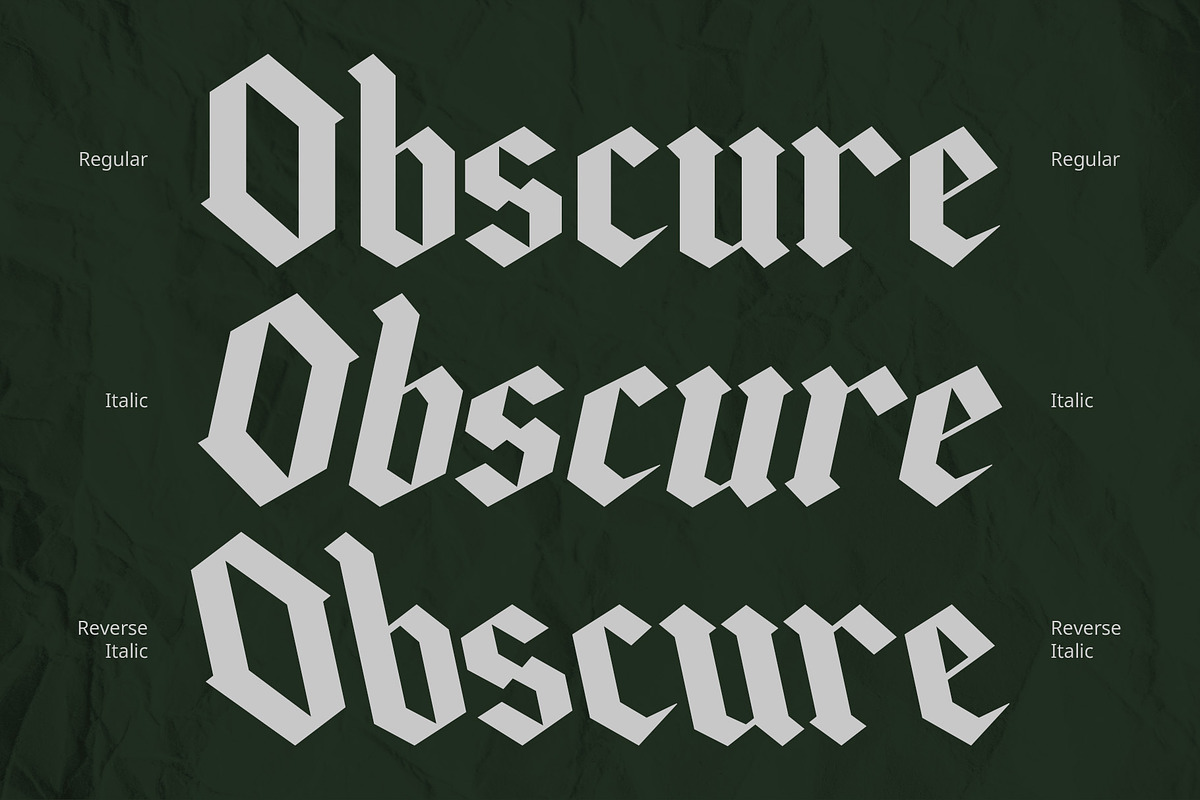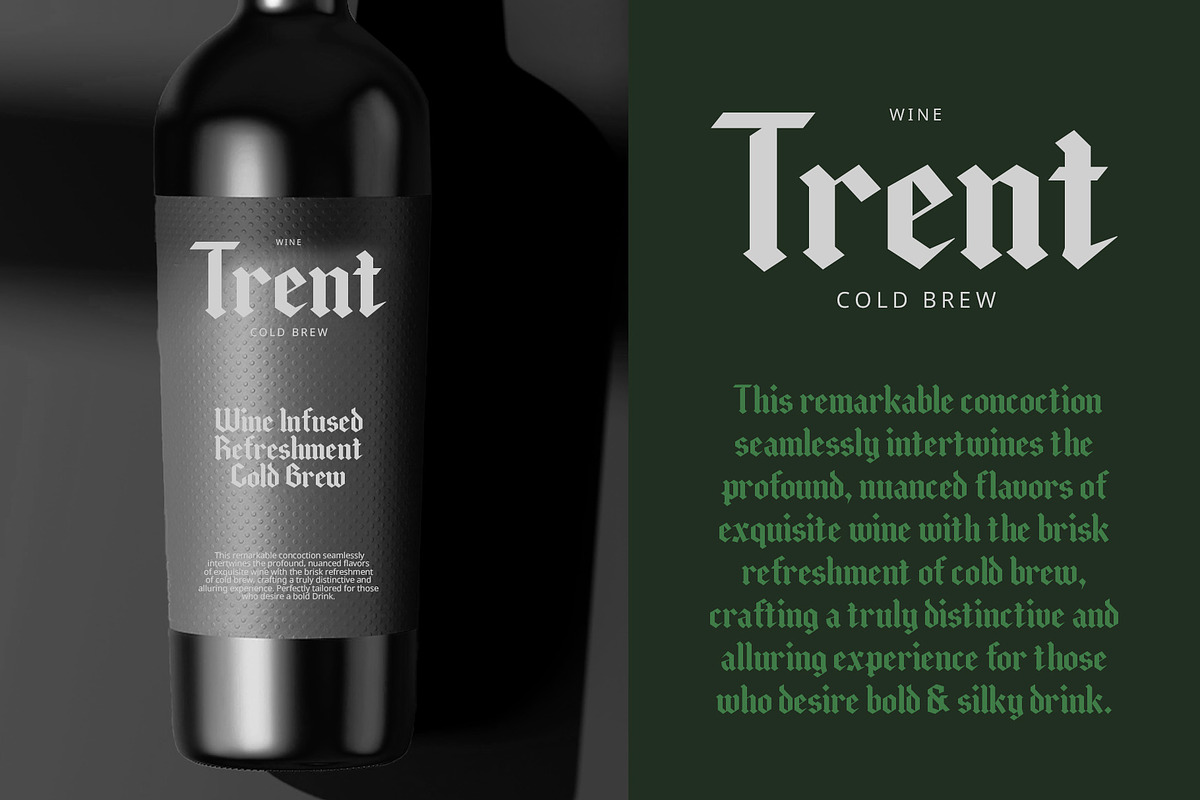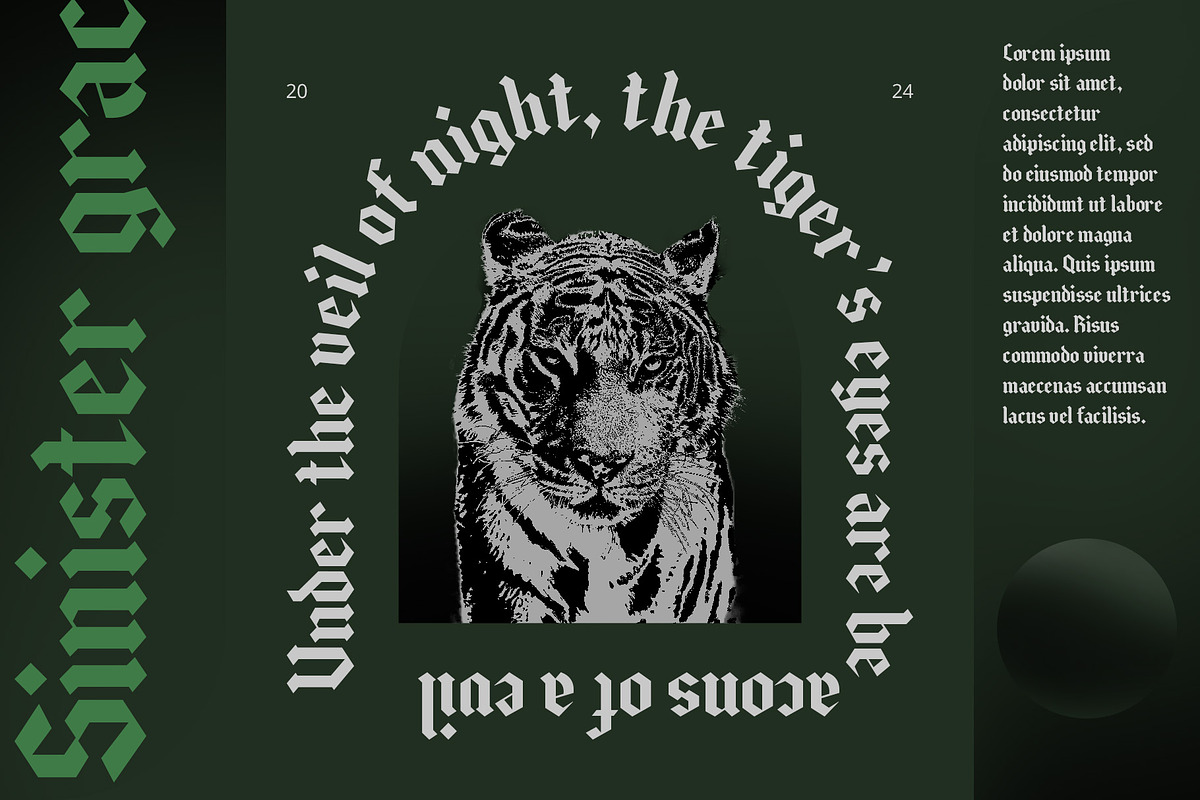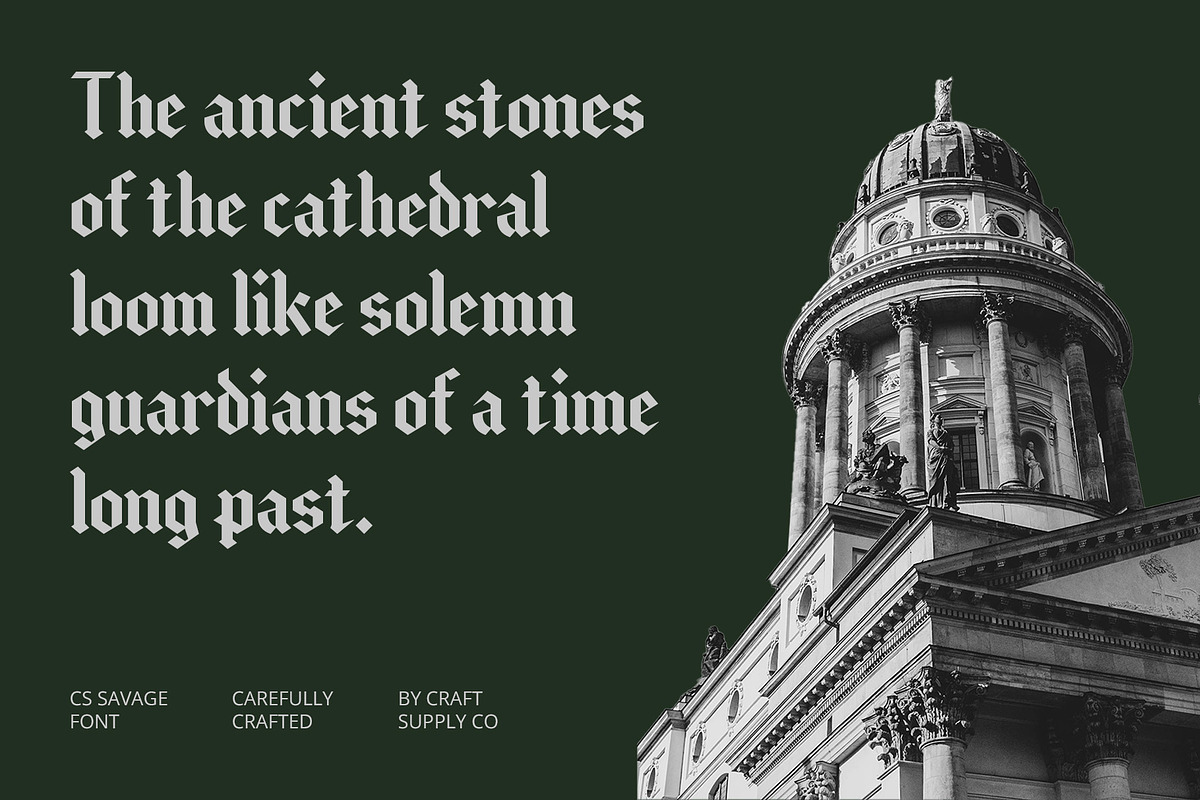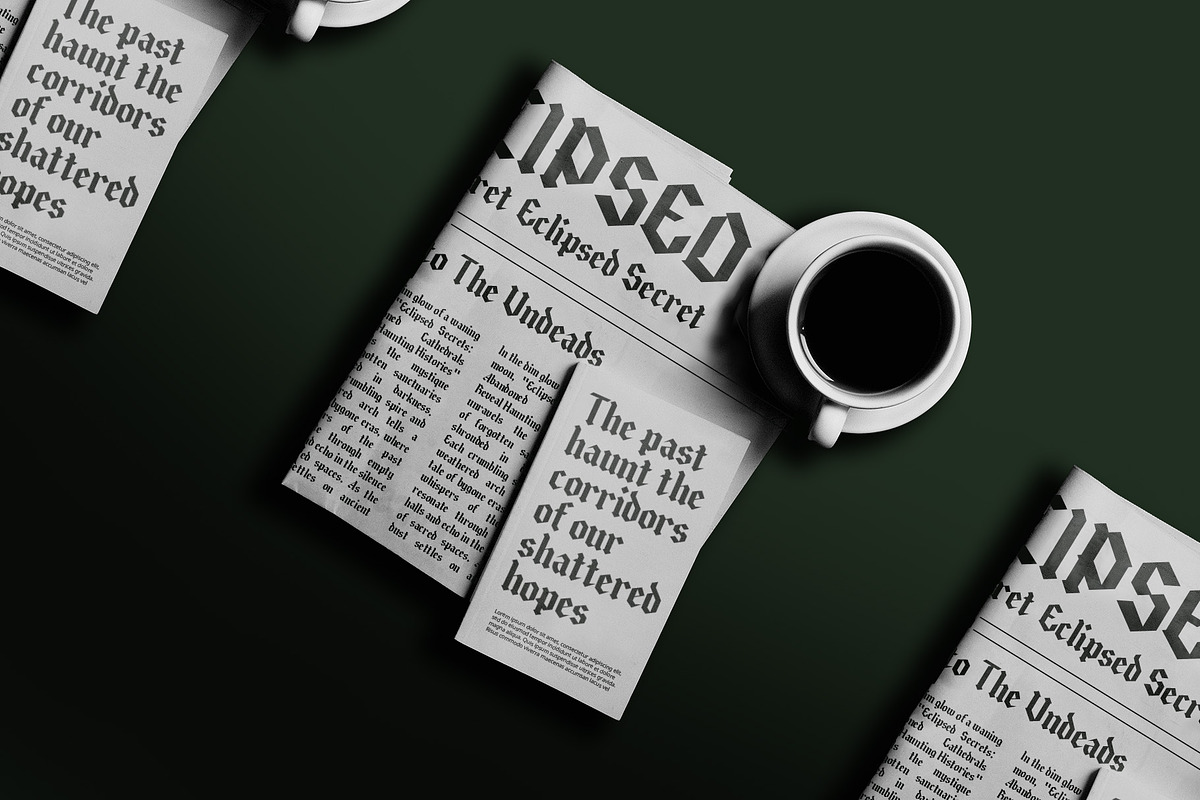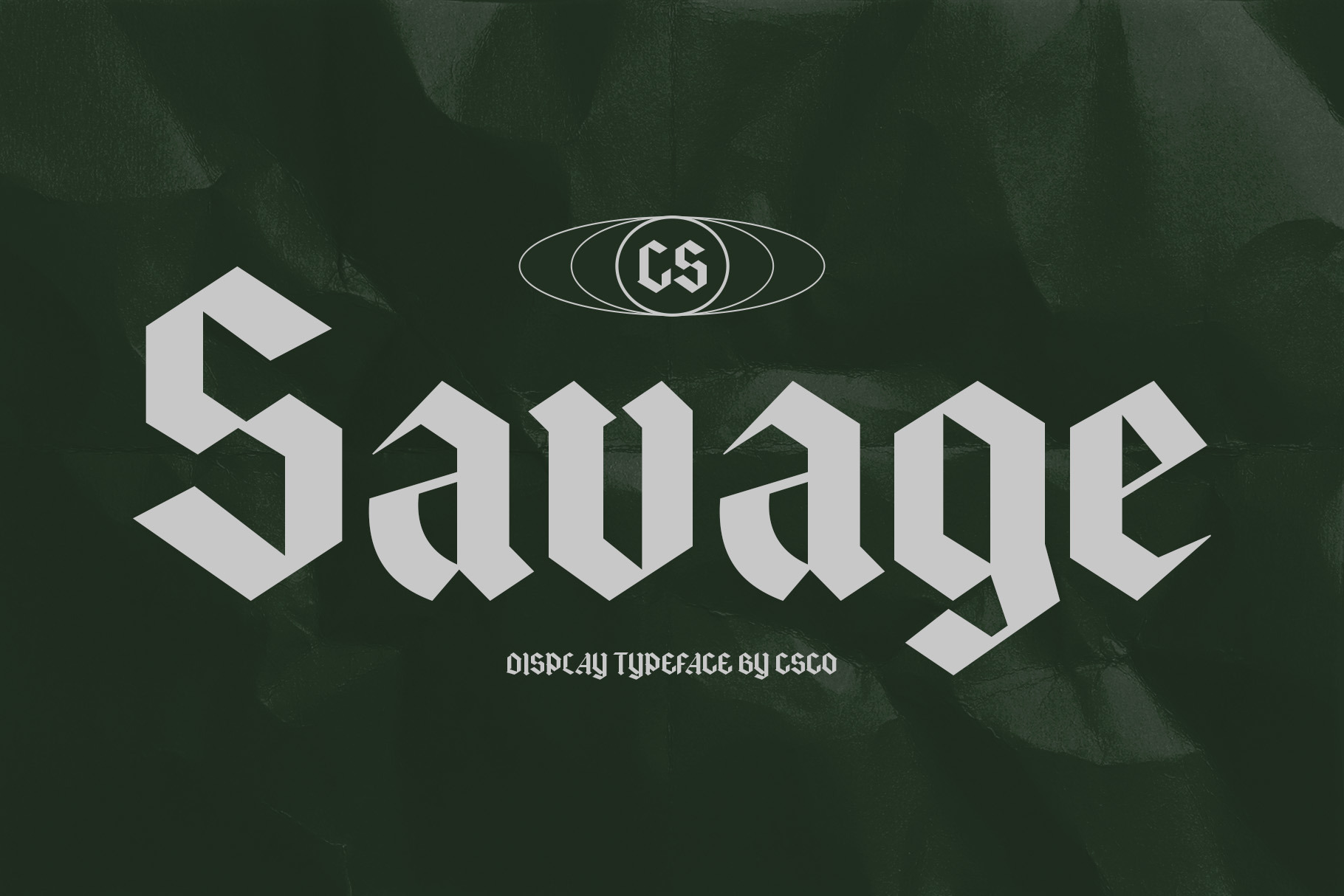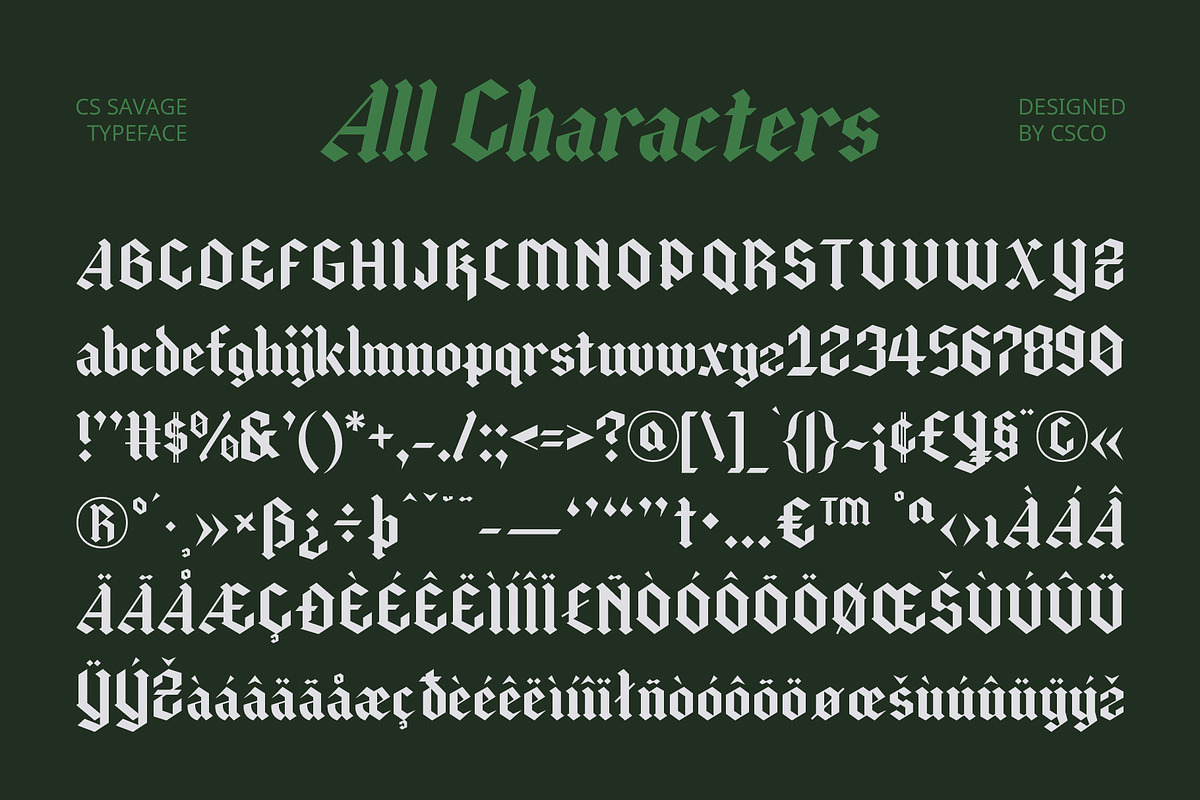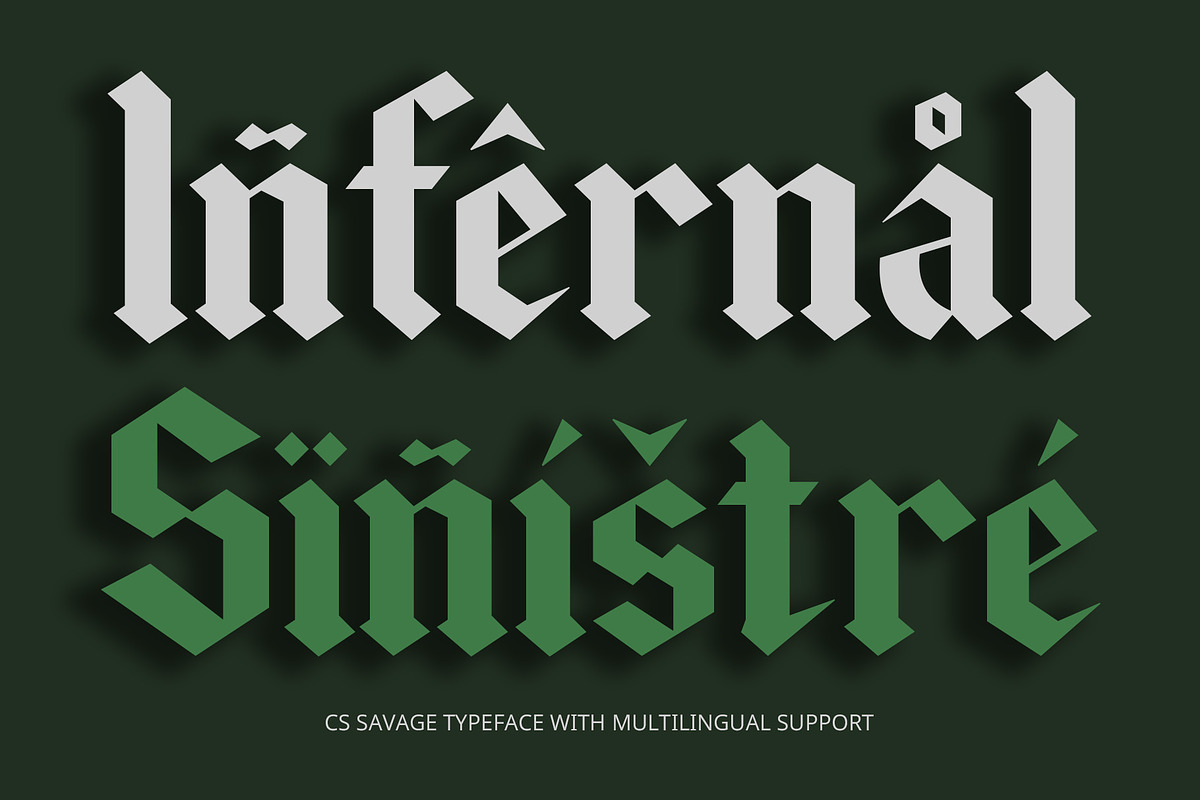
CS Savage – Gothic Font
CS Savage – Gothic Font: Dramatic Elegance with Vintage Charm
Gothic Display with Intricate Ornamental Details CS Savage is a Gothic display font that embodies a dramatic and historical appearance through its intricate ornamental details and rigid letter structures. With sharp angles and decorative lines reminiscent of old prints, this font exudes a classic and sophisticated vibe. Its intricate textures and elaborate design elements capture the essence of traditional Gothic aesthetics, making it a standout choice for any vintage-inspired project.
Vintage Feel with Classic Elegance Featuring a rich blend of historical and decorative elements, CS Savage offers a vintage charm that adds depth and character to your designs. The font’s sharp angles and ornate details create a sense of timeless elegance, ideal for projects that require a touch of historical sophistication. Its classic appeal is perfect for evoking a sense of grandeur and tradition, making it suitable for a range of design applications.
Ideal for Historical and Vintage Designs CS Savage excels in applications that need a distinctive historical touch. Whether you’re designing event posters, vintage logos, or promotional materials, this font provides a powerful combination of old-world elegance and unique vintage flair. Its dramatic and ornate style ensures that your designs will stand out with a memorable and classic aesthetic, capturing attention and conveying a sense of timeless sophistication.
- CS Savage Regular
- CS Savage Italic
- CS Savage Reverse Italic